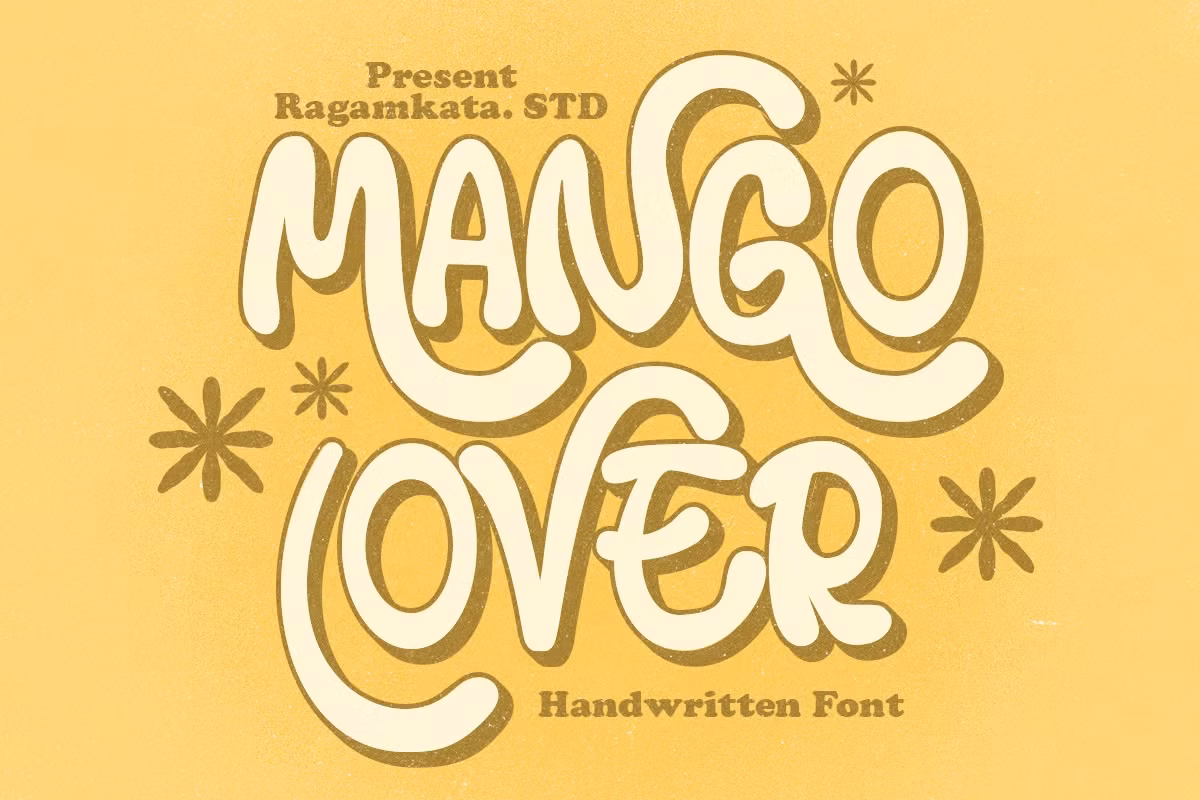
Mango Lover Playful Handwritten Font Free Download is a cheerful and whimsical typeface that brings warmth and personality to your designs. With its playful letterforms, hand-drawn charm, and casual vibe, this font is perfect for branding, social media graphics, invitations, greeting cards, and any project that needs a fun, friendly touch.
Whether you’re creating a lively logo, designing a colorful invitation, or crafting engaging social media content, Mango Lover adds charm and playfulness to your typography. It’s the ideal font for designers who appreciate joyful, hand-drawn typefaces.